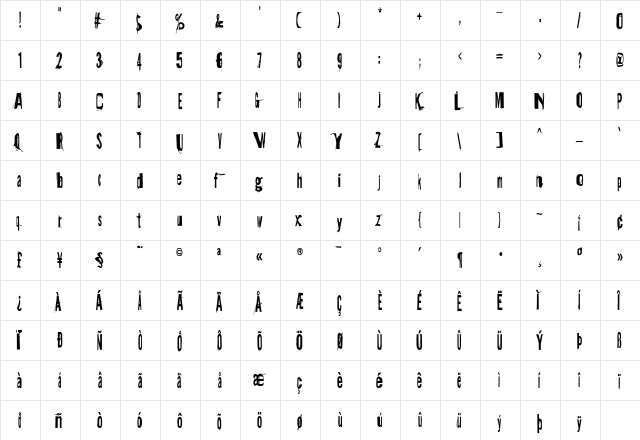
Angst Condensed
Design Context for Angst Typeface
Angst is a composed and adaptable typeface that performs quietly and consistently across a wide range of design contexts. The condensed width makes it efficient for tight spaces without sacrificing legibility.